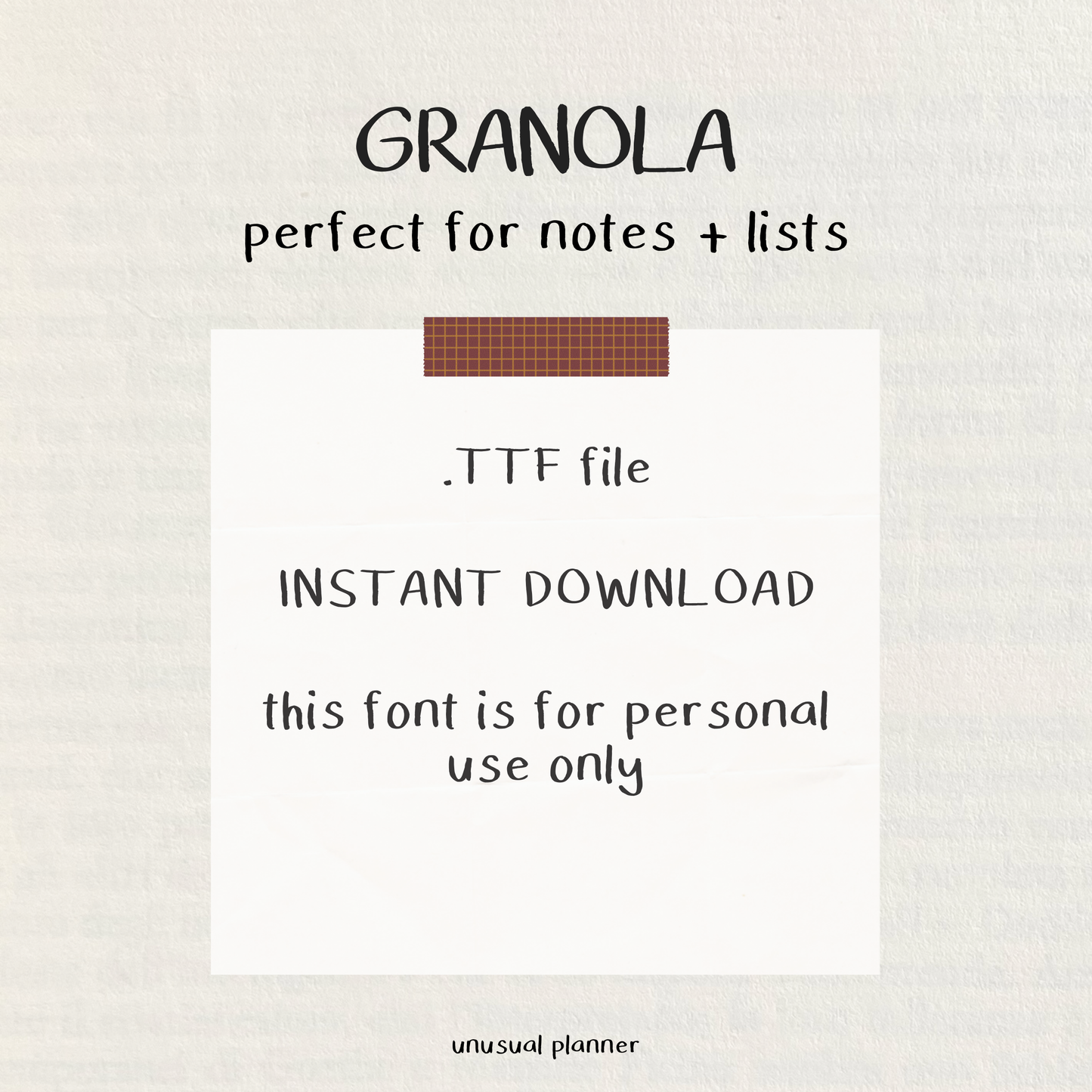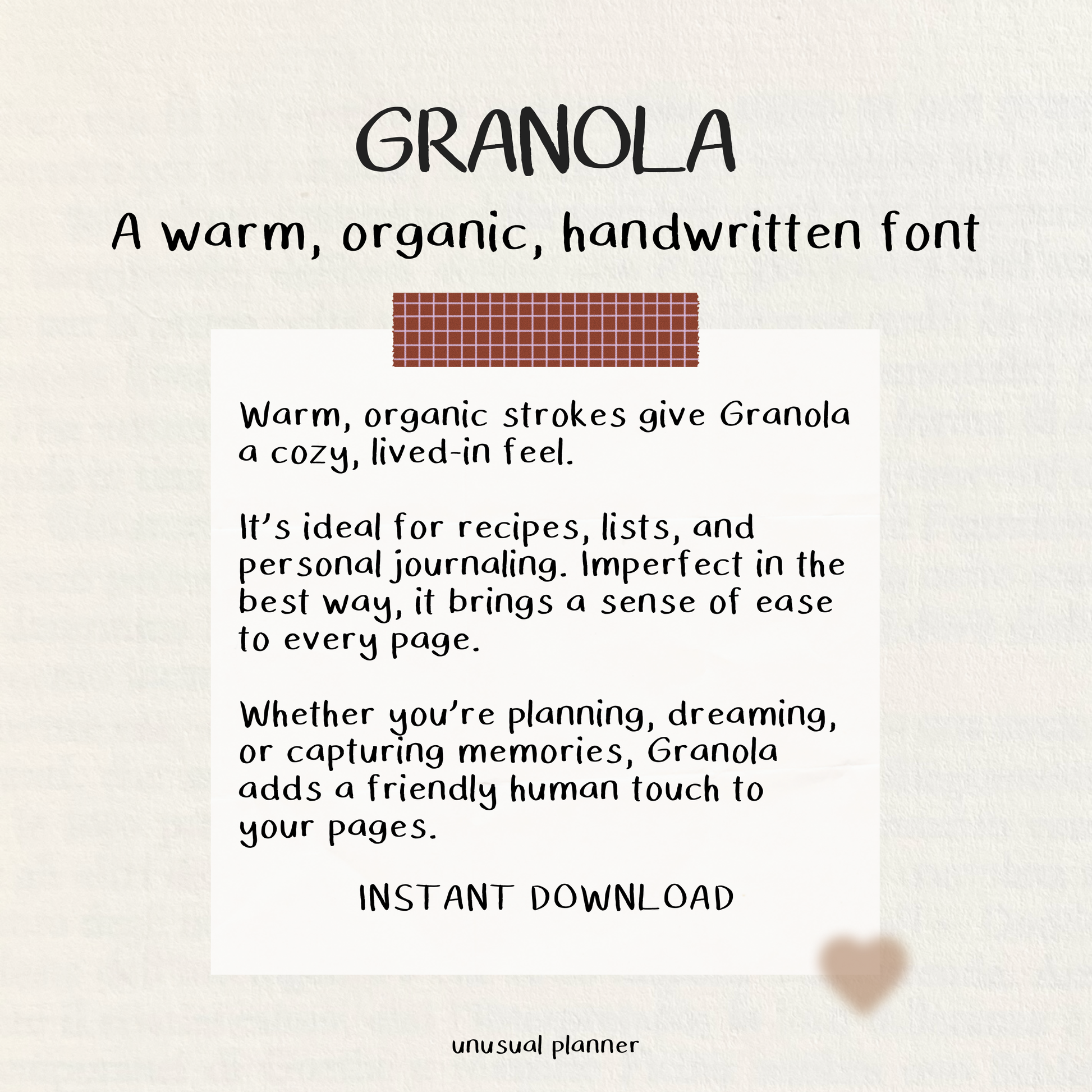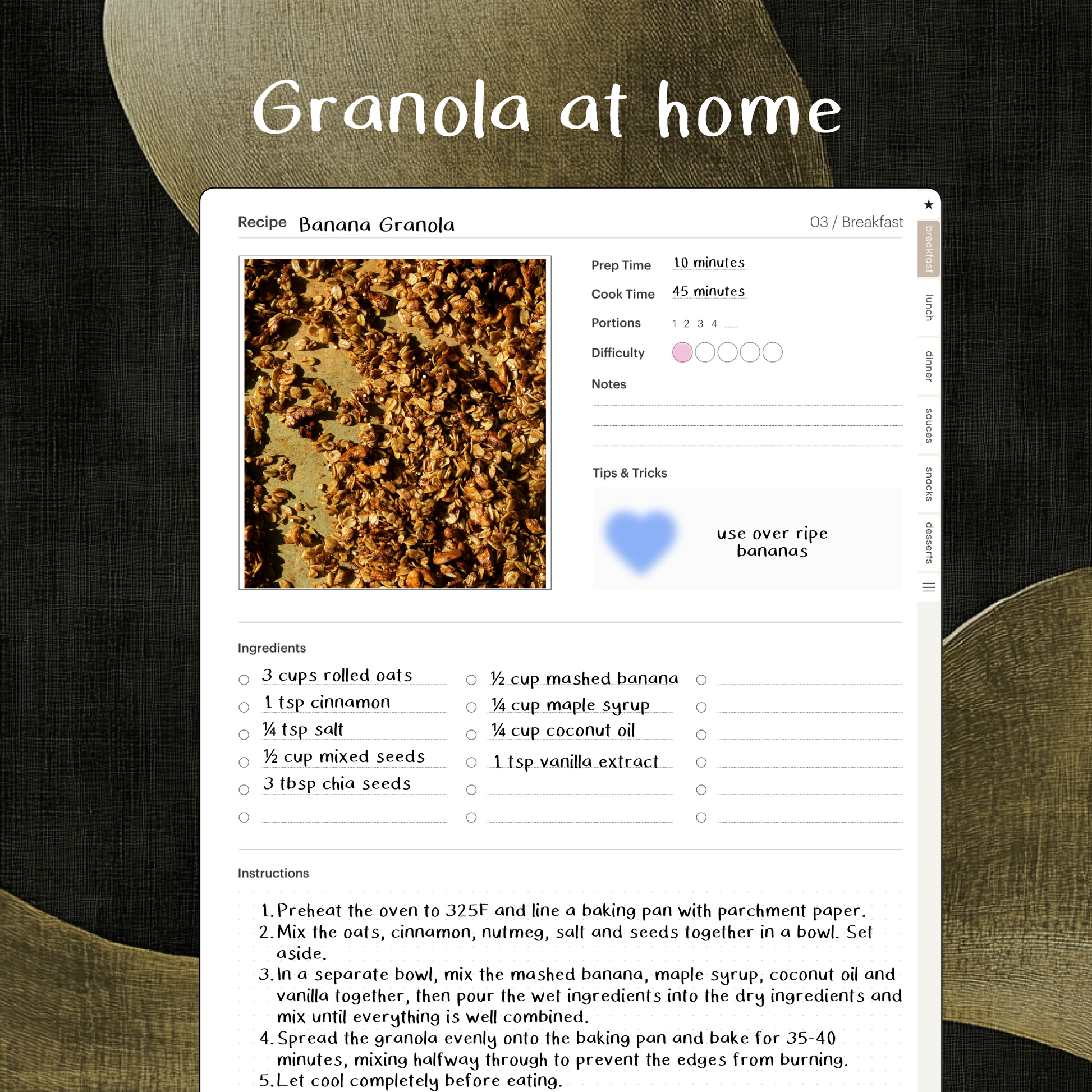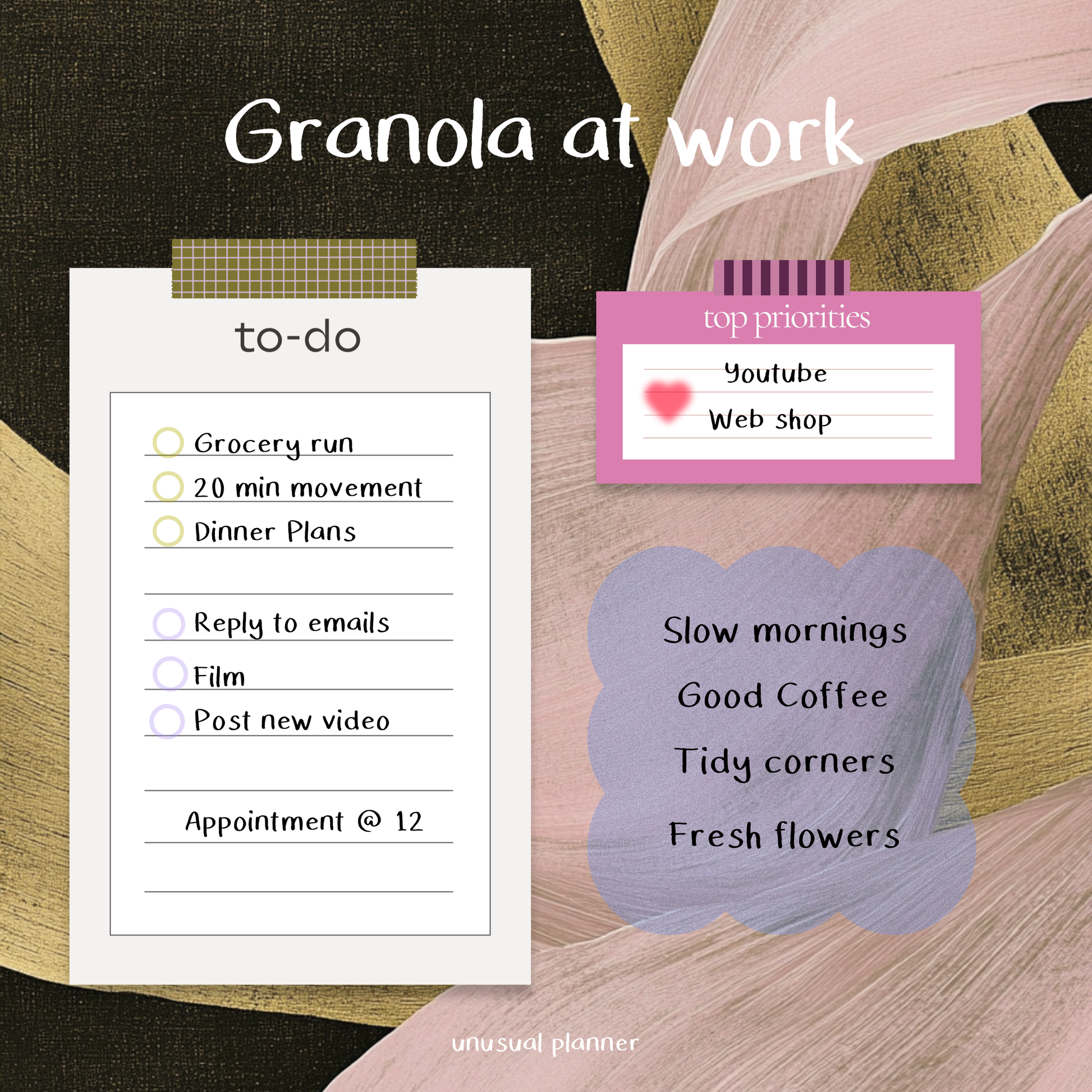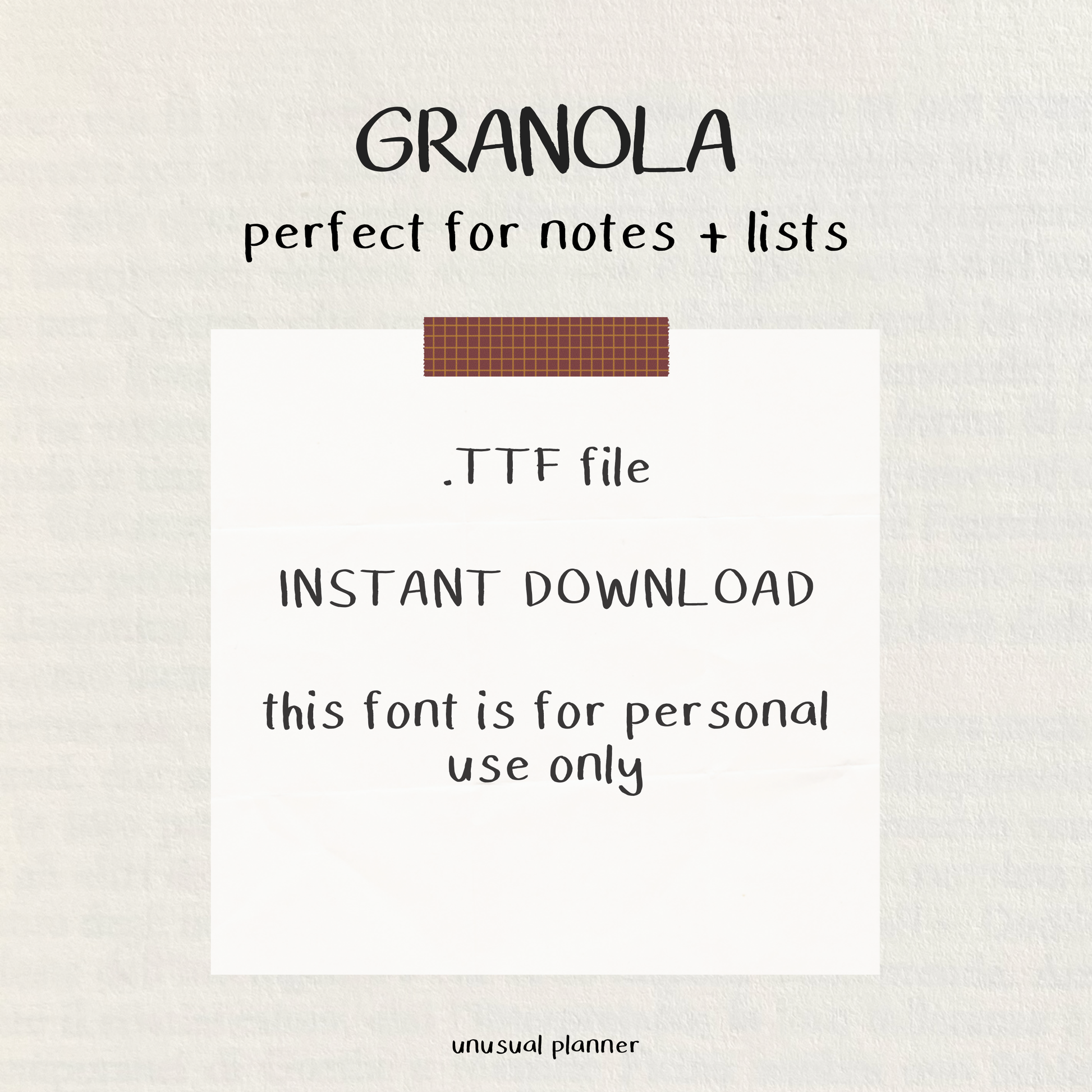
Granola Handwritten Font
Granola adds warmth and personality to your notes. Its natural, slightly textured strokes create a relaxed handwritten look that feels easy and authentic. Great for journaling, digital planning, or everyday lists across GoodNotes, Notability, and other design apps.
Use it for: journaling, everyday lists, recipes, and personal notes.
A warm, organic handwritten font.
Perfect for digital planning and note-taking. Works with most design apps and devices, with a handwritten style that brings a personal, polished look to your pages.